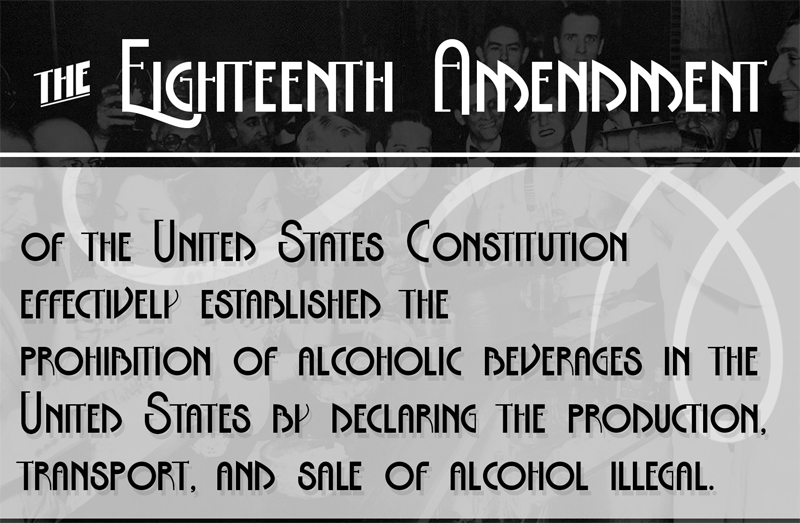
Font name: | The Eighteenth Amendment |
Author: | Julia Holdnack |
Note by Julia Holdnack | |
This font is named "The Eighteenth Amendment" because I wanted it to have a 1920's prohibition/speakeasy/art deco vibe. The Bold Caps version of this font contains 81 extra glyphs that are a collection of small, stylized common words and prepositions that can be used for artistic effect. Please contact me at onion375@gmail.com to purchase the font for commercial use. |